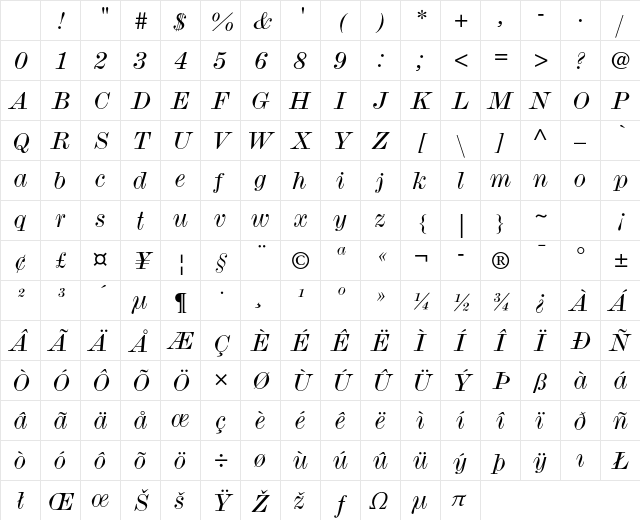
Monotype Modern Std Wide Italic
Style: Wide Italic
Designer: Unknown
Complete Monotype Modern Std Wide Italic glyph index. Displaying only characters natively supported by Monotype Modern Std Wide Italic font.
Design Context for Monotype Modern Std
Monotype Modern Std uses fixed-width spacing throughout, giving it the structured, systematic character associated with coding environments and technical documentation. The slanted form adds forward momentum and visual energy.